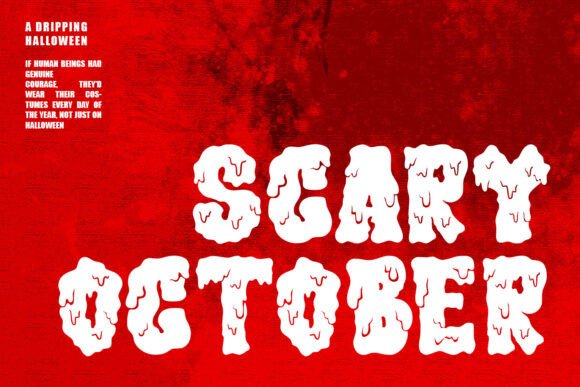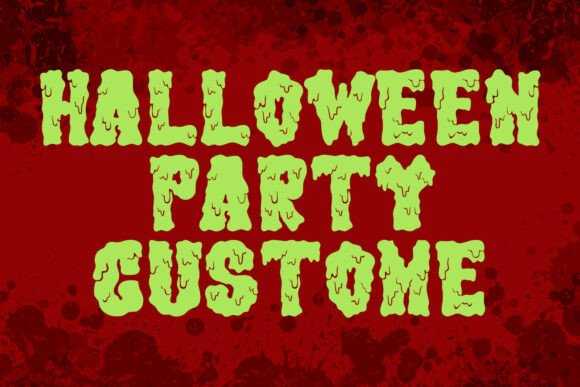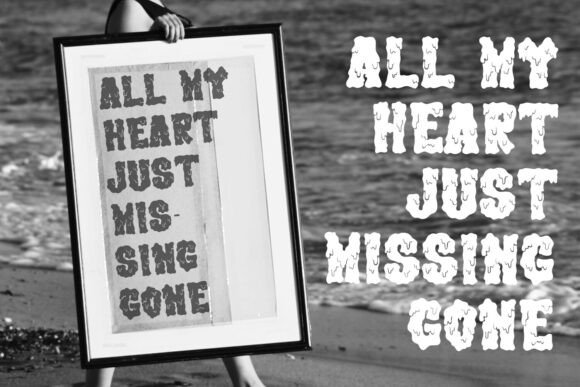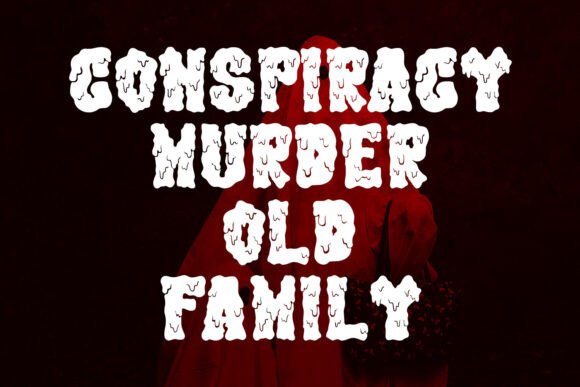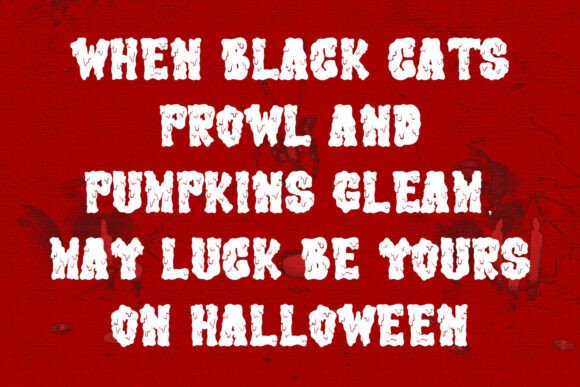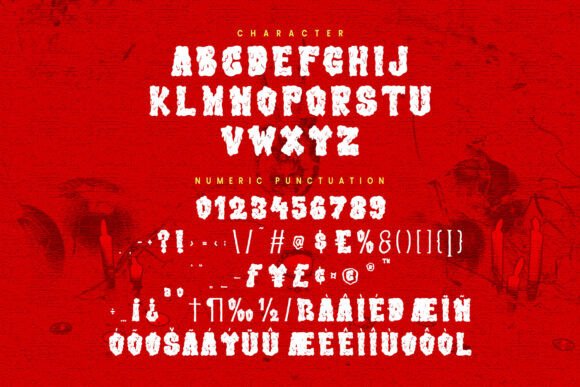
Bloody Wall Font: A Spooky Decoration to Elevate Your Halloween Display
As the spookiest season approaches, designers and crafters are on the lookout for innovative ways to create a haunting atmosphere for Halloween parties, haunted houses, or simply to add a touch of eeriness to their home decor. One effective way to achieve this is with the “Bloody Wall Dripping Halloween Display,” a creepy decoration that simulates blood dripping down a wall. In this article, we’ll explore the world of Bloody Wall Font and provide inspiration for designers and crafters to create a terrifying scene that will leave their guests in awe.
What is Bloody Wall Font?
The Bloody Wall Font is a unique decoration that mimics the effect of blood dripping down a wall. This spooky display is designed to create a frightening ambiance, perfect for Halloween enthusiasts, party planners, and haunted house designers. The decoration typically consists of a wall sticker or a DIY project that uses fake red blood to create a realistic, horror-movie-like effect.
Designing with Bloody Wall Font
When it comes to designing with Bloody Wall Font, the possibilities are endless. Designers can use this decoration as a focal point to create a cohesive and terrifying scene. Here are some ideas to get you started:
- Haunted Portraits: Combine the Bloody Wall Font with old portraits or eerie frames to create a haunting gallery wall that will send chills down your guests’ spines.
- Creepy Corners: Use the Bloody Wall Font to create a spooky nook or cranny in a room. Add some cobwebs, skeletons, or other Halloween decorations to amplify the effect.
- Horror Movie-Inspired Scenes: Recreate iconic horror movie scenes using the Bloody Wall Font. Think The Shining, The Exorcist, or The Walking Dead.
Crafting with Bloody Wall Font
Crafters can also get creative with the Bloody Wall Font by making their own decorations from scratch. Here are some DIY ideas to try:
- Wall Stencils: Design and print your own wall stencils using a Bloody Wall Font template. Use paint or fake blood to create a unique and terrifying design.
- Decoupage: Cut out images of bloodstains or use a Bloody Wall Font printout to decoupage onto a wall or a piece of furniture.
To get the most out of your Bloody Wall Font decoration, here are some tips and tricks to keep in mind:
- Lighting: Experiment with dim lighting to amplify the eerie effect of the Bloody Wall Font. Use spotlights or string lights to create an ominous glow.
- Textures: Mix different textures like fabric, paper, or plastic to add depth and visual interest to your Bloody Wall Font decoration.
The Bloody Wall Font is a versatile decoration that can elevate any Halloween display or party. With its creepy, realistic effect, it’s sure to send chills down your guests’ spines. Whether you’re a designer or a crafter, this article has provided you with inspiration and ideas to create a terrifying scene that will leave a lasting impression. So, get creative and have fun with the Bloody Wall Font – Happy Halloweening!